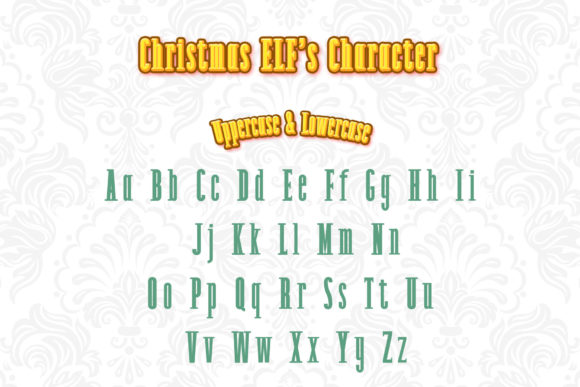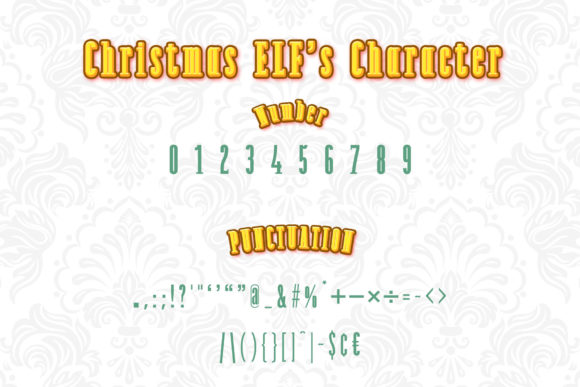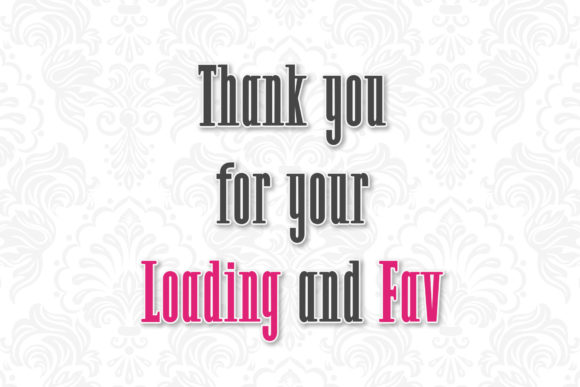
Introducing Christmas Elf Font: The Ultimate Holiday Design Companion
Are you looking for a font that captures the magic and whimsy of the holiday season? Look no further than Christmas Elf Font, a tall and thin lettered serif font that’s sure to become your new favorite design companion. With its incredibly versatile style, Christmas Elf Font is perfect for creating spectacular designs that will leave your audience spellbound.
The Characteristics of Christmas Elf Font
Christmas Elf Font is a unique and eye-catching font that boasts a range of characteristics that make it perfect for holiday designs. Here are just a few of the features that set it apart:
- Tall and thin lettering: Christmas Elf Font features letters that are tall and slender, giving it a elegant and refined feel that’s perfect for creating sophisticated holiday designs.
- Serif details: The font features delicate serif details that add a touch of whimsy and playfulness to your designs.
- Versatile style: Christmas Elf Font is incredibly versatile, making it perfect for use in a wide range of designs, from holiday cards and invitations to festive packaging and marketing materials.
Why Designers and Crafters Love Christmas Elf Font
So why do designers and crafters love Christmas Elf Font? Here are just a few reasons why this font has become a holiday favorite:
- Easy to read: Despite its slender lines, Christmas Elf Font is incredibly easy to read, making it perfect for use in designs where you need to communicate a message clearly.
- Highly customizable: Christmas Elf Font can be easily customized to fit your design needs, whether you want to change the color, size, or style of the font.
- Pairs well with other fonts: Christmas Elf Font pairs perfectly with other fonts, making it easy to create beautiful and harmonious design combinations.
Ideas for Using Christmas Elf Font in Your Designs
So how can you use Christmas Elf Font in your designs? Here are just a few ideas to get you started:
- Holiday cards and invitations: Use Christmas Elf Font to create beautiful and elegant holiday cards and invitations that will impress your friends and family.
- Festive packaging: Add a touch of holiday magic to your packaging with Christmas Elf Font, perfect for use on gift boxes, tags, and more.
- Social media graphics: Use Christmas Elf Font to create eye-catching social media graphics that will help your brand stand out during the holiday season.
- Web graphics: Add a touch of holiday whimsy to your website with Christmas Elf Font, perfect for use in holiday-themed banners, headers, and more.
Tips for Getting the Most Out of Christmas Elf Font
Here are just a few tips for getting the most out of Christmas Elf Font:
- Experiment with different colors: Christmas Elf Font looks great in a range of colors, so don’t be afraid to experiment and find the perfect hue for your design.
- Play with font sizes: Christmas Elf Font can be used at a range of font sizes, from small and delicate to large and bold.
- Combine with other design elements: Christmas Elf Font pairs perfectly with other design elements, such as illustrations, graphics, and textures.
Christmas Elf Font is a truly special font that’s perfect for designers and crafters who want to add a touch of holiday magic to their designs. With its tall and thin lettering, serif details, and versatile style, Christmas Elf Font is sure to become your new favorite design companion. So why wait? Download Christmas Elf Font today and start creating spectacular holiday designs that will leave your audience spellbound!